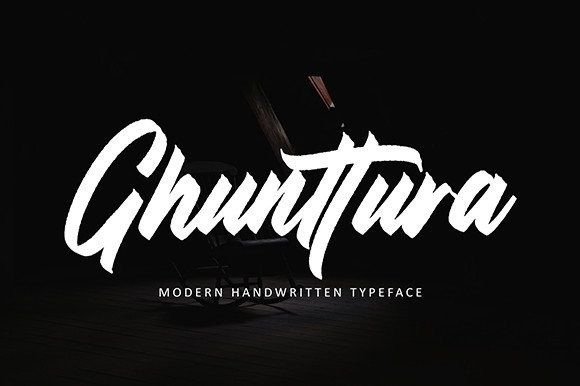
Unleash the Power of Expression with Ghunttura Font: The Perfect Touch for Your Creative Projects!
Embark on an enchanting journey through the world of calligraphy with Ghunttura Font, a modern handwritten masterpiece that will transform your designs into works of art. Crafted with meticulous care by Pineungtype & Missinklab, this breathtaking creation is the epitome of sophistication and elegance.
With Ghunttura Font, you can infuse your projects with a touch of individuality and captivate your audience's imagination. Its flowing lines and graceful curves add a personal touch to any design, whether it's an alluring invitation, a captivating logo, or a heartfelt blog header.
Immerse yourself in the beauty of Ghunttura Font and watch as your words come alive. Its versatility knows no bounds, making it the perfect companion for a myriad of design projects. From branding and stationery to posters and lettering, Ghunttura Font will elevate your creations to new heights.
So, unleash your creativity and let Ghunttura Font guide you on a journey of artistic expression. Let your imagination soar as you craft designs that resonate with beauty, charm, and timeless elegance. Ghunttura Font is more than just a font; it's an invitation to create something truly extraordinary.